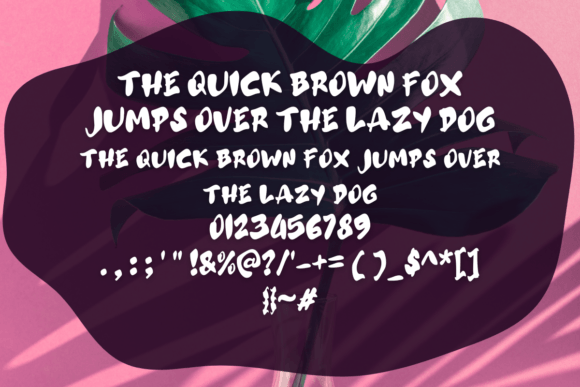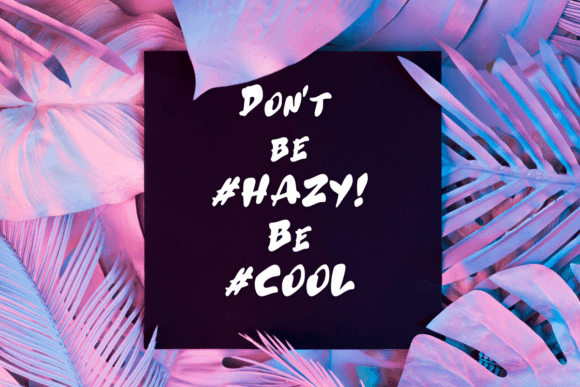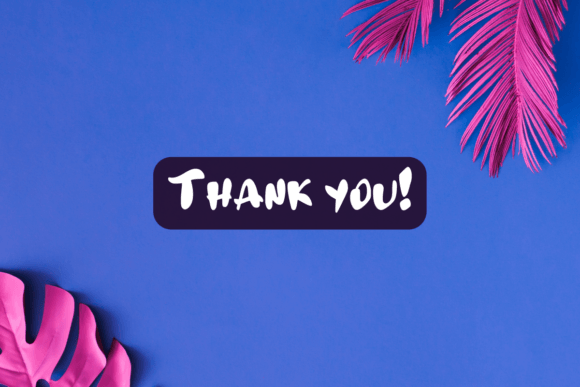
The Perfect Blend of Whimsy and Style: Hazy Curves Font
Who hasn’t experienced that moment of pure creative bliss, when a single font or design element brings your project to life? For designers, it’s a rush of excitement and inspiration that can make all the difference. And, for those seeking that elusive ‘wow factor,’ we have just the thing: the Hazy Curves Font. With its two playful variations – bold and bold italic – this display font is the ultimate addition to any design project.
Whether you’re crafting a social media campaign, creating a children’s book, or designing a logo for a new startup, Hazy Curves Font is sure to bring a touch of friendliness and approachability to your work. Its bold, yet childish style makes it the perfect choice for projects that require a lighthearted and informal tone. By incorporating the Hazy Curves Font into your designs, you’ll be adding a unique and eye-catching element that’s sure to make your projects stand out.
Hazy Curves Font Key Features
- Unique Characteristics: The Hazy Curves Font features a distinctive, hand-drawn aesthetic with subtle imperfections, giving it a warm, human touch.
- Language Support: Supports a wide range of languages, including Latin, Cyrillic, Greek, and many others, making it a versatile choice for global branding and design.
- Kerning and Ligatures: Includes advanced kerning and ligature pairs, ensuring seamless text flow and enhancing overall readability.
Hazy Curves Font Review
Overall, I think Hazy Curves is a beautiful and unique font that can add a lot of character to your designs. ✨ Here are some things that really work well:
- Expressive curves: The font’s flowing curves are perfect for creating a sense of whimsy and playfulness in your designs.
- Highly legible: Despite its playful feel, Hazy Curves is surprisingly easy to read, making it a great choice for body text or headings.
- Good for branding: The font’s distinctive look makes it a great choice for creating a unique brand identity.
However, there are a few limitations to keep in mind: ⚠️
- May not be suitable for formal designs: The font’s playful feel may not be suitable for formal or professional designs, such as business reports or academic papers.
- Can be difficult to pair: Hazy Curves has a strong personality, which can make it challenging to pair with other fonts.
Overall, I think Hazy Curves is a great choice for designers who want to add a touch of personality to their designs. With its expressive curves and high legibility, it’s a great choice for creative projects, branding, and more. Just be mindful of its limitations, and you’ll be able to get the most out of this beautiful font.
Tips for Getting the Most Out of Hazy Curves Font
To get the most out of Hazy Curves Font, try the following:
- Use it for creative and artistic projects, such as posters, flyers, and social media graphics.
- Combine Hazy Curves Font with other creative fonts to create unique and eye-catching designs.
Some common use cases for Hazy Curves Font include:
- Posters and flyers for events and promotions.